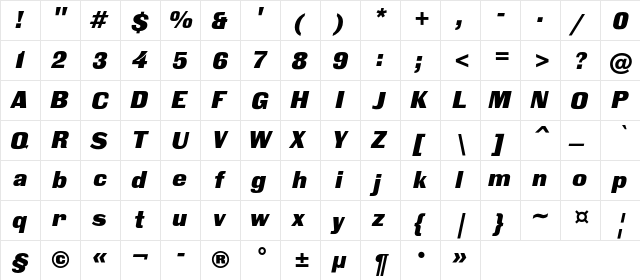
BlackGroteskC Italic
Design Context for BlackGroteskC Typeface
BlackGroteskC takes a clean, functional approach — its unadorned letterforms prioritise legibility and work reliably across screen and print environments. Its italic angle brings a sense of urgency and motion to the letterforms.
Font Pairing: Works well alongside a characterful serif or display font that can carry the expressive load while BlackGroteskC handles the functional copy.
Pro Tip: Pair BlackGroteskC with a display or serif font for headlines — its neutral character makes it an excellent supporting player in complex typographic systems.